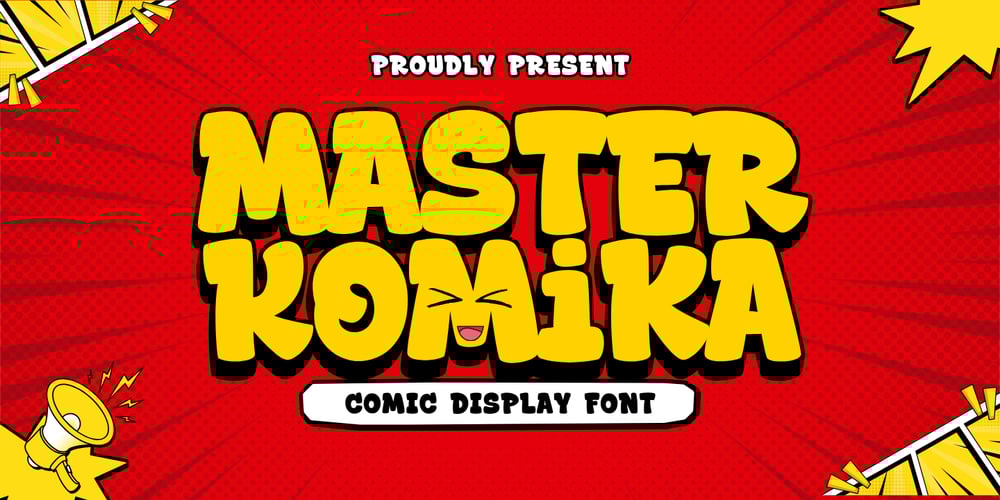
Master Komika Font Family was designed by Muhamad Yusron Billah and published by Sronstudio. Master Komika contains 3 styles and family package options. Master Komika is a playful and vibrant display comic font that brings fun and energy to your designs. Perfect for comics, kids’ projects, posters, and playful branding, it adds a cheerful and creative touch to any layout. Let Master Komika spark joy in your creations!Included:- 3 Style : Regular, Shadow & Extrude- Upper & Lowercase- Numeral & Punctuation- PUA Encoded- Multilingual support- Simple Installation- Work both on Mac and WindowsThank you very much 🙂